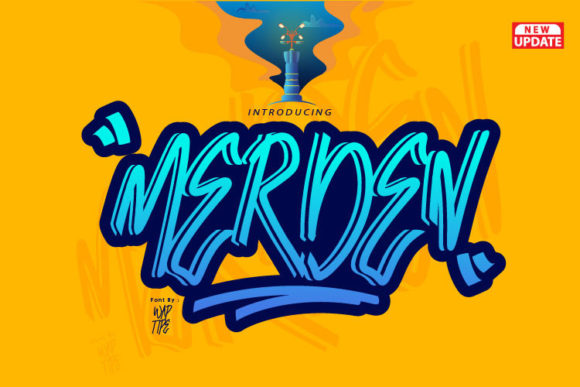
**Experience the Raw, Uninhibited Energy of Merden Graffiti: The Ultimate Font for Unleashing Your Inner Rebel**
Prepare yourself for a typographic revolution! Merden Graffiti, the electrifying display font from the visionary minds at WAP, is here to ignite your creativity and elevate your designs to new heights. Inspired by the untamed spirit of urban street art, this font embodies the raw energy and unapologetic expression of graffiti culture.
With its bold, angular strokes and interchangeable uppercase and lowercase characters, Merden Graffiti demands attention. Unleash your wild side as you experiment with endless combinations, creating captivating designs that leave an unforgettable mark.
Whether you're designing cutting-edge band posters, eye-catching social media graphics, or any project that calls for a touch of urban edge, Merden Graffiti is your weapon of choice. Its unique character set empowers you to break free from the ordinary and make a statement that resonates with your audience.
Imagine the thrill of seeing your designs adorned with the raw, graffiti-inspired characters of Merden Graffiti. Your posters will electrify the streets, your social media posts will command attention, and your creations will exude an aura of rebellious creativity.
Don't settle for ordinary fonts that fade into the background. Embrace the power of Merden Graffiti and let your designs stand out from the crowd. Its bold strokes and interchangeable characters will ignite your imagination, inspiring you to create captivating designs that leave a lasting impression.